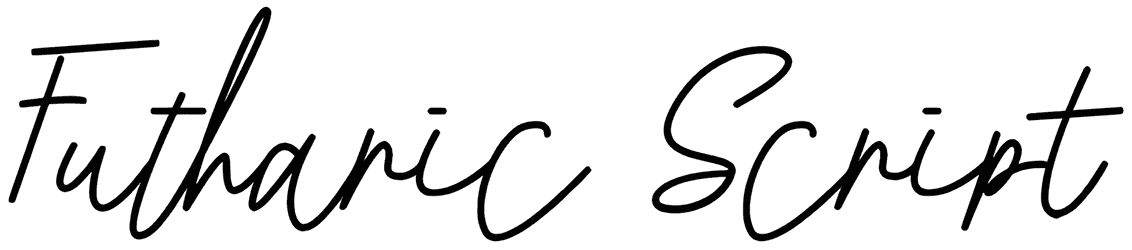
Futharic Script Font
The idea of creating content that shows creativity and elegance is something that can be expected from a cursive font. With that, we suggest you try Futharic Script, which provokes ideas of femininity in your context.
This fast handwritten font might be a little hard to read, but for instance, you get a collection that contains all the characters from uppercase and lowercase letters to the numbers and punctuation marks.